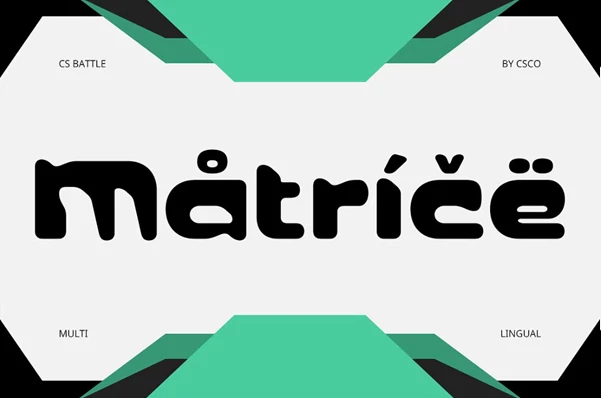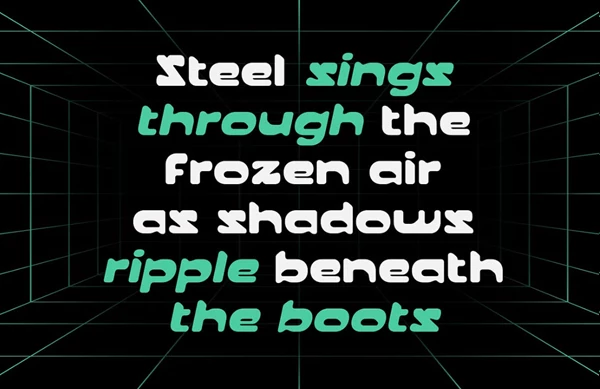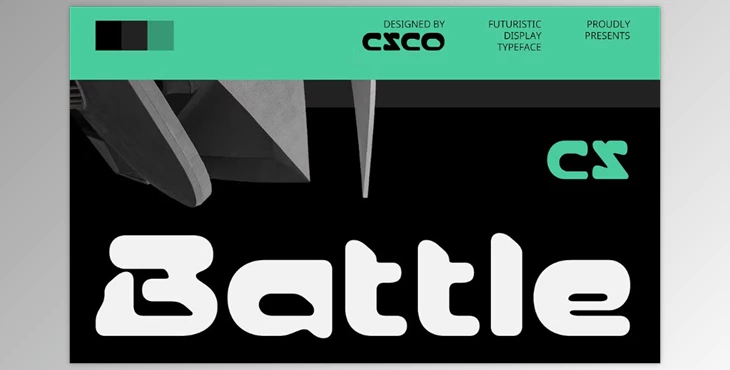
CS Battle – Futuristic Font:
Futuristic Typeface Battle Ready for the Future CS Battle is a futuristic display typeface with a lot of geometry, a strong sense of structure, and a clean, crisp, modern appeal. It feels like the language of technology, advanced developments, and superior machines and digital spaces. It feels authoritative, clear, and elegantly futuristic.
Futuristic Title Typeface Battle Ready for Digital-First Branding. The impression of CS Battle is very rigid and sharp, which allows it to be an interface and branding identity system with potential for the most cutting-edge applications and personas. This would work for anything technology-based, startups, gaming identities, and any visual needing a sense of modern aesthetics, innovation, or power.
Futuristic Cuts for Battle-Tested Identity Systems. The characteristics of the font align with strong verticals and clear horizontals, with the addition of angular cuts providing a sense of futuristic rhythm. This typeface draws from science fiction, cyberpunk, and contemporary minimalism to forge a professional yet fanciful typographic experience.
War Against Ordinary Design Won with This Typeface. When your design wants to make something about the future come alive, be it a poster, a digital campaign, or a visually appealing identity that is bold and assured, CS Battle allows your message to be perceived as cutting-edge and forward-focused. CS Battle does not let itself be an afterthought of a trend; it sets the pace for progress and gives the designer the confidence to create boundaries without concern that it will come off as too harsh or rigid. CS Battle is chic and professional. For any design that needs to appeal to an audience with confidence and style, this is the typeface.
- CS Battle Regular
- CS Battle Italic
- CS Battle Reverse Italic
- Uppercase and lowercase characters
- Numerals and Punctuation (OpenType Standard)
- Accents (Supports Multilingual Characters)